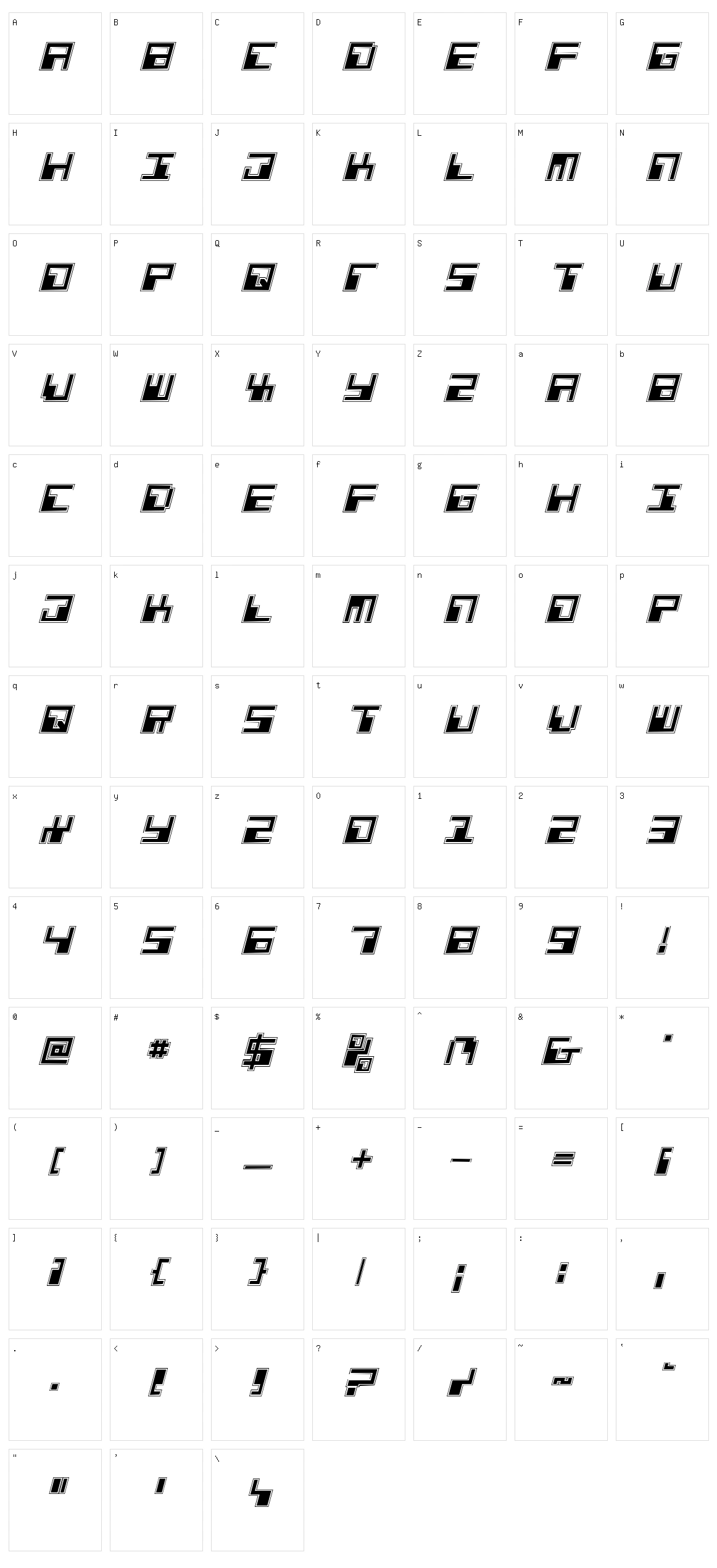
2008 Iconian Fonts - Daniel Zadorozny
This font comes with the following 16 versions: Regular, Italic, 3D, 3D Italic, Pro, Pro Italic, Expanded, Expanded Italic, Bold, Bold Italic, Laser, Laser Italic, Condensed, Condensed Italic, Leftalic and Rotalic.